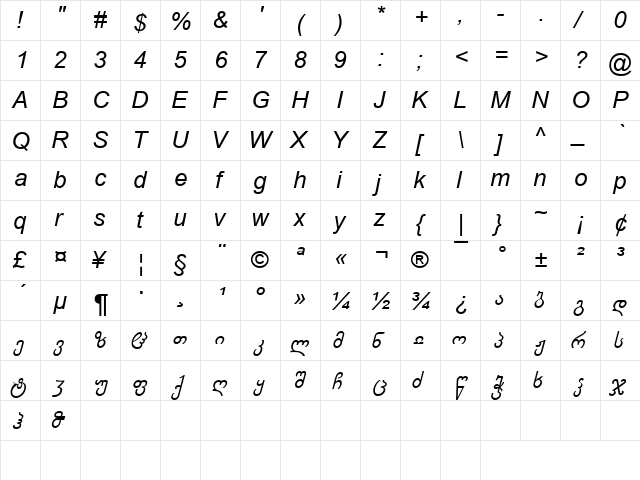
Geo_Arial Italic
Design Context for Geo_Arial Typeface
Geo_Arial is a composed and adaptable typeface that performs quietly and consistently across a wide range of design contexts. Its italic angle brings a sense of urgency and motion to the letterforms.
Pro Tip: Try Geo_Arial for annotation and caption copy alongside an upright companion — the contrast in angle creates a dynamic but ordered typographic system.